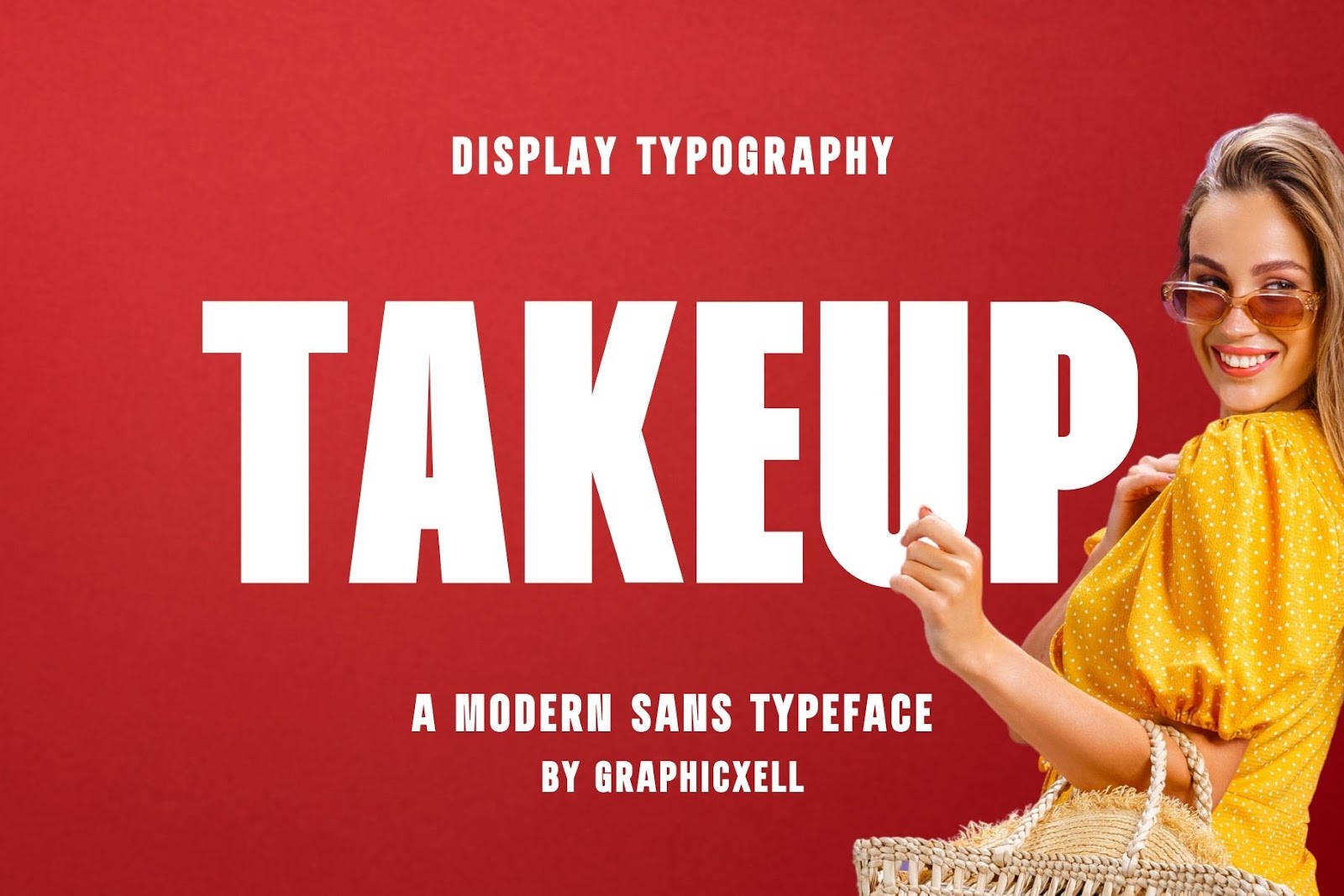
Takeup Font is a modern typeface that masterfully balances elegance and minimalism through a harmonious blend of inspiration sources. Its symmetrical rhythm and carefully refined proportions give each glyph a visually appealing structure that feels both contemporary and timeless. Subtle contours and nuanced contrasts lend the font a polished character without overwhelming the design.
Crafted for versatility, Takeup Font is well-suited for a wide array of creative applications—from brochures, posters, and magazine layouts to branding, advertising, video titles, and digital content. Its clean yet expressive form makes it an ideal choice for projects that demand clarity with a refined edge.
Whether used in print or on screen, Takeup Font ensures strong visual impact and seamless readability. It is a reliable design companion for designers seeking a modern typeface with distinctive personality and professional appeal.